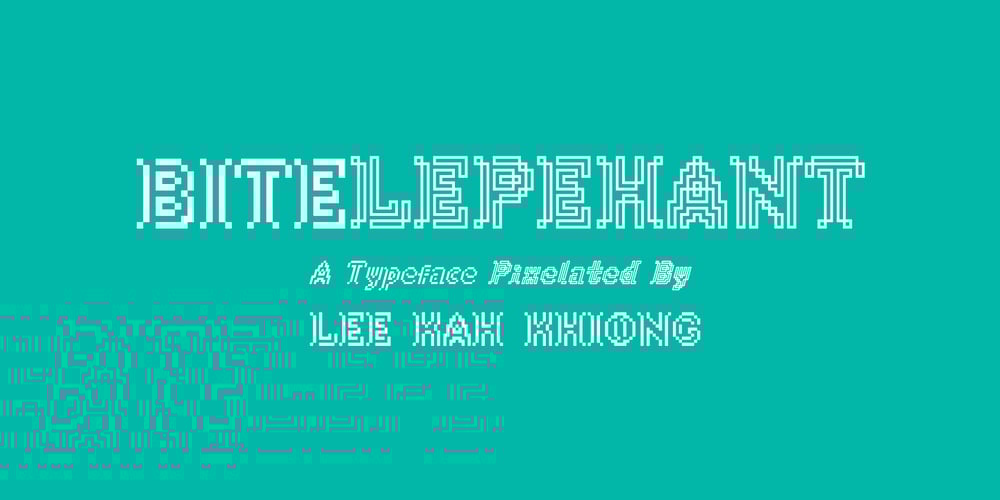
Bitelephant Font Family was designed by Lee Kah Khiong and published by Kah Khiong Design. Bitelephant contains 4 styles and family package options. Bitelephant is a type of pixel font with Slab Serif. It’s unique pipeline characteristic, result a bold & simple font. It’s bitmap give a retro game looks, but with a futuristic feel. Suitable for any fun, sci-friction, techno, game & digital theme.